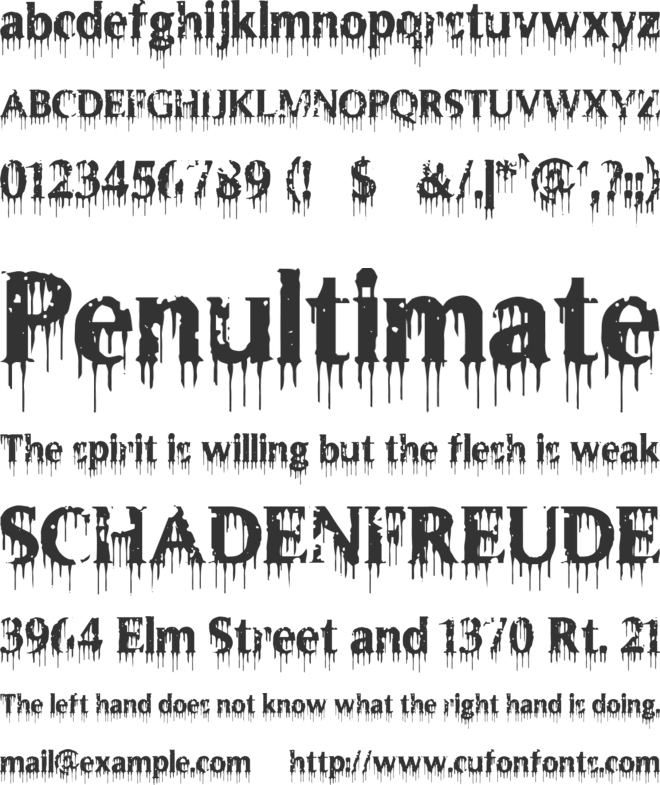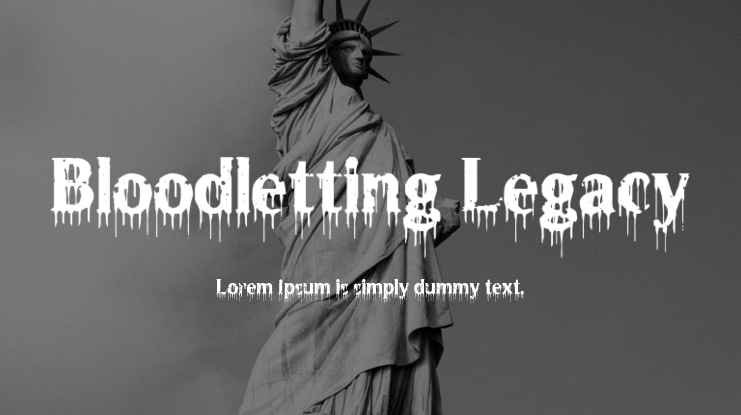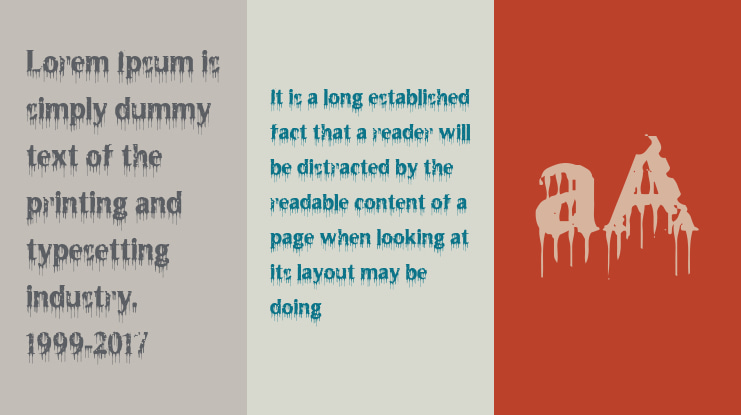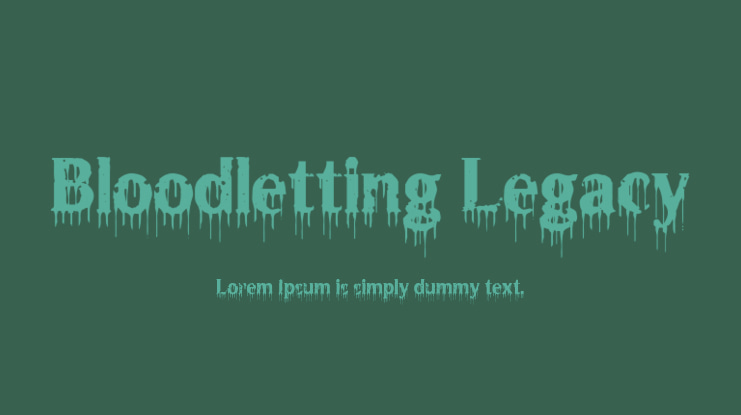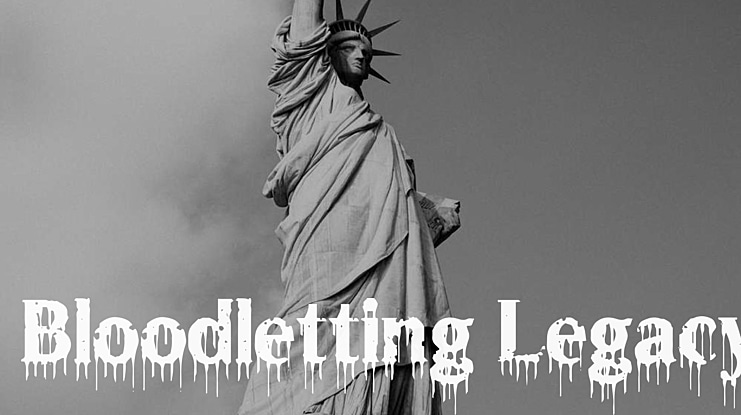
Bloodletting Legacy Font
Chris Vile
This unique typeface seamlessly melds the timeless elegance of serif design with the dramatic intensity of erosion and sharp blood drips. It's not just a font; it's an experience, invoking both unease and artistry in every stroke